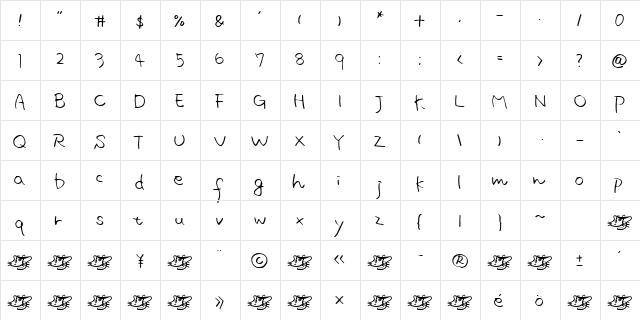
mscript Light Font Preview
mscript Light
mscript Light Font Details
Design Context for mscript Typeface
mscript flows with the natural rhythm of handwritten lettering, making it ideal for designs that call for warmth and personal expression. Its slender proportions lend an understated elegance to any composition.
Font Pairing: Combine mscript with a simple geometric sans for maximum contrast — the tension between flowing curves and clean structure is a classic typographic pairing.
Pro Tip: Use mscript for short runs of text — names, titles, or taglines. Extended body copy in script faces tires the eye quickly.